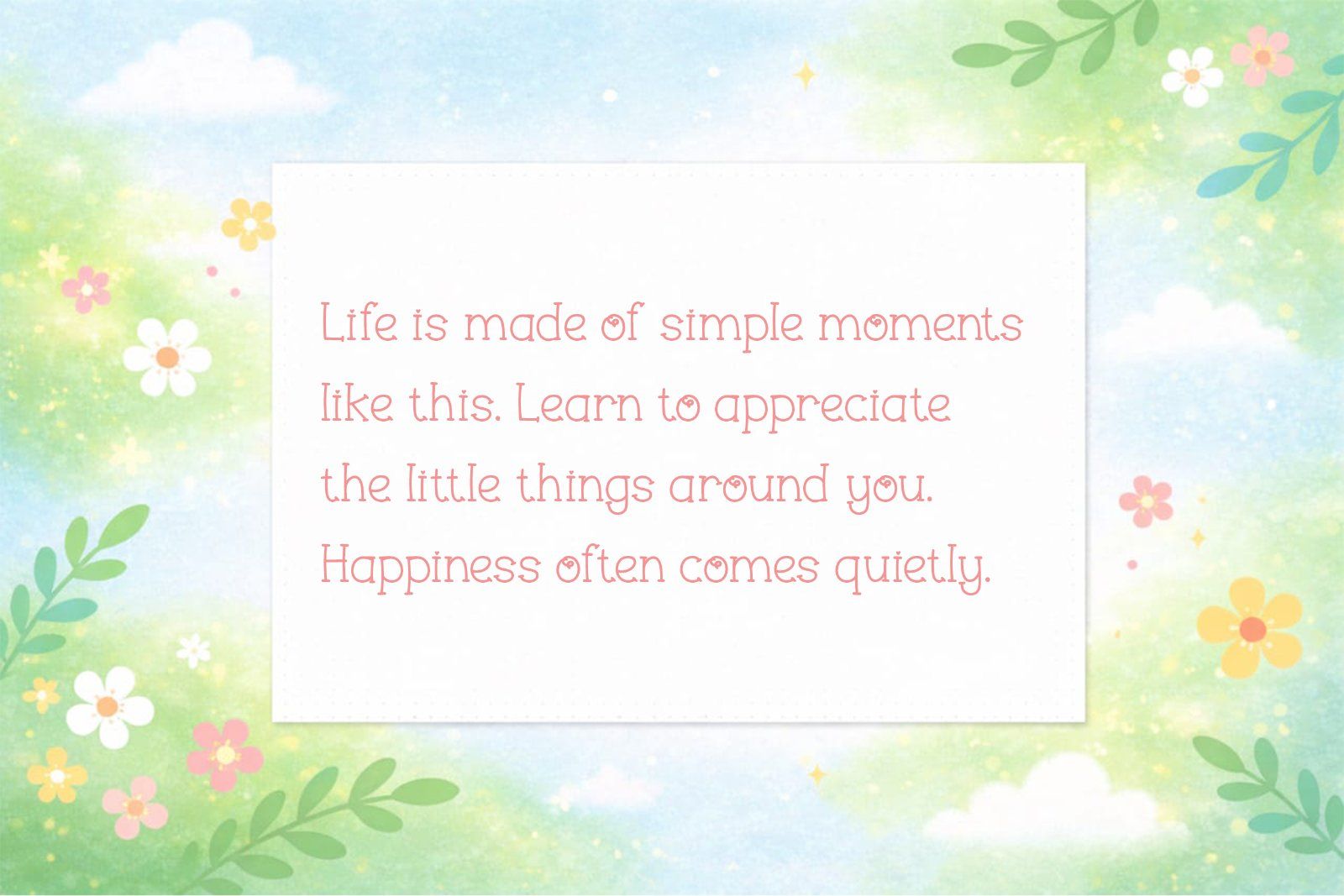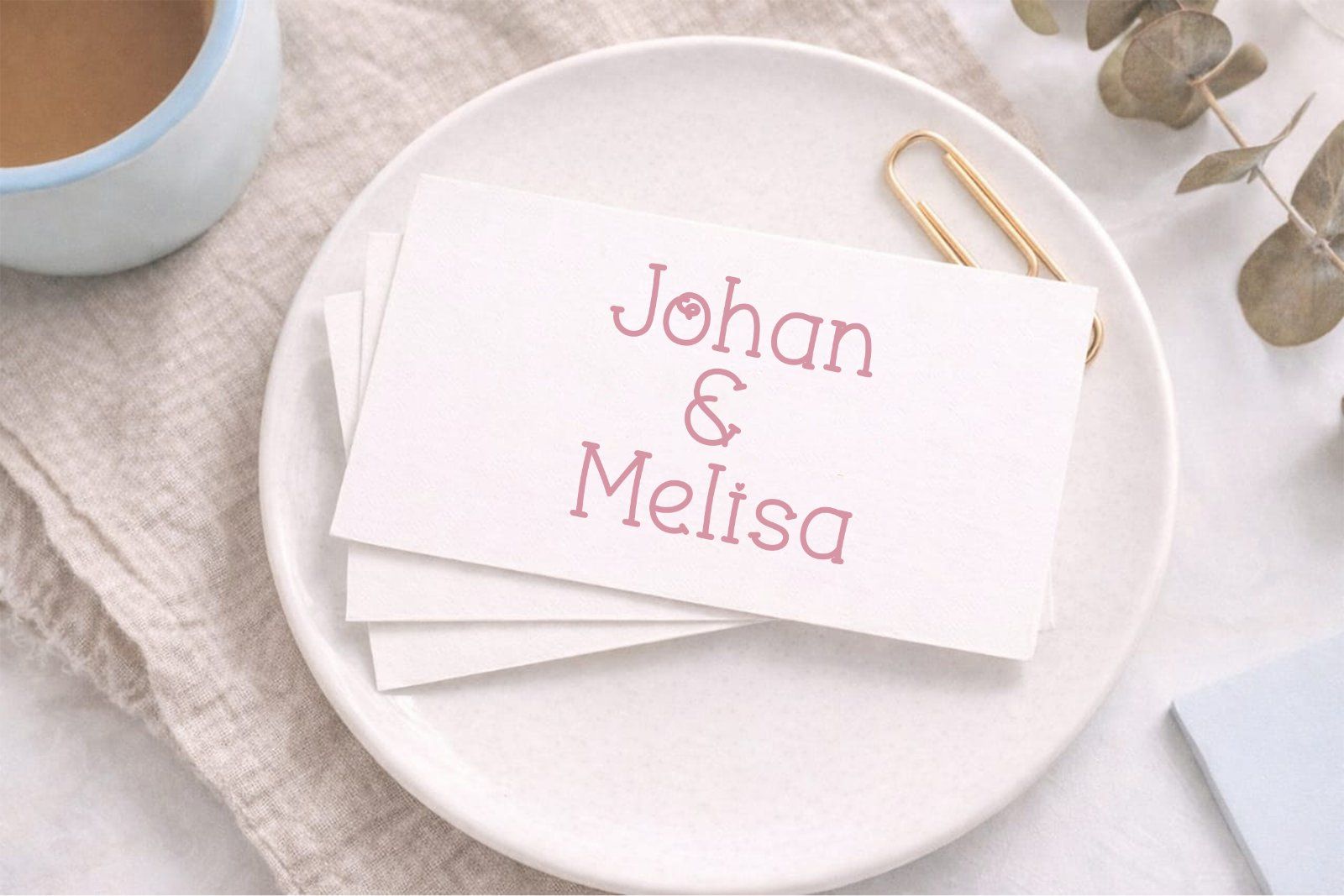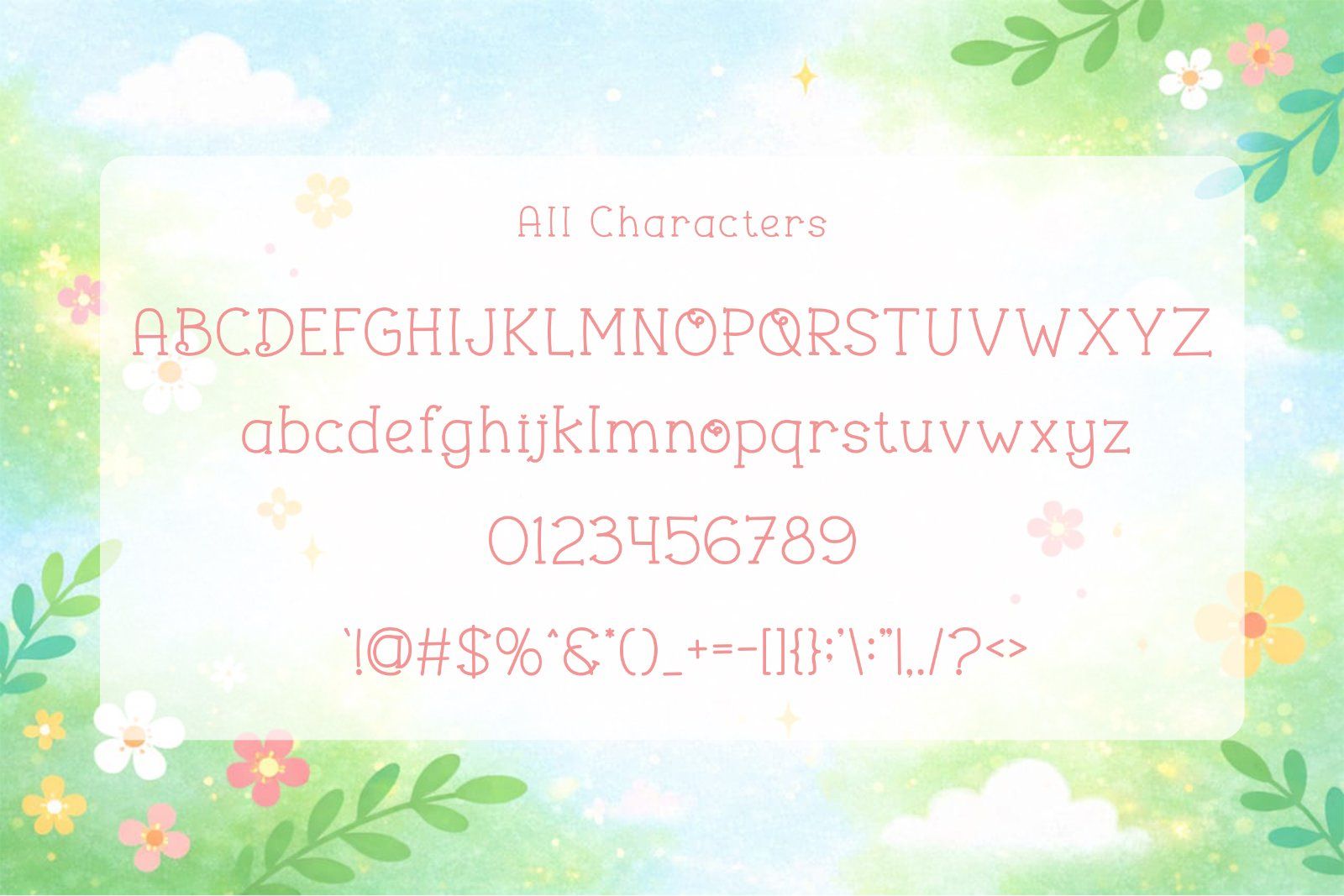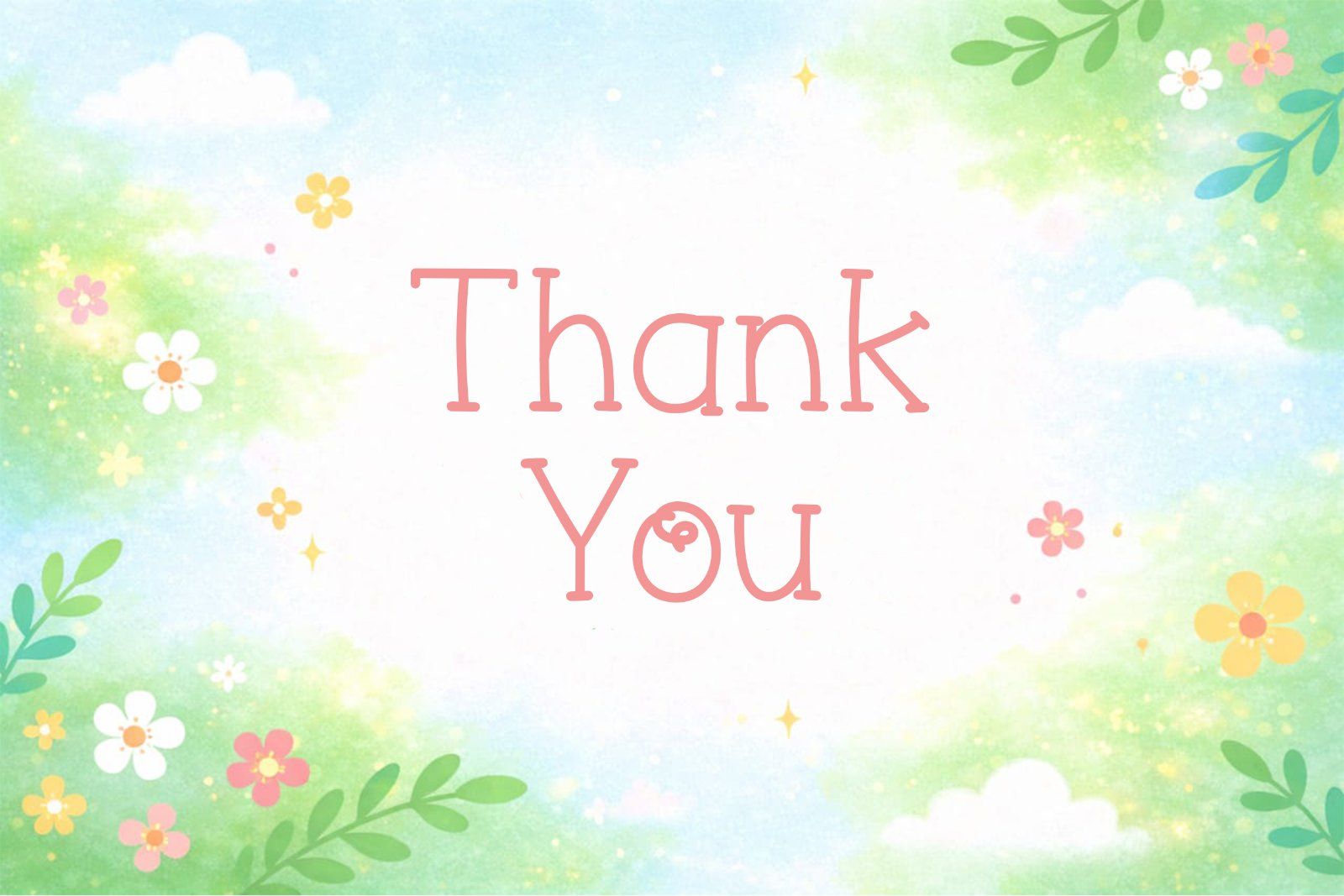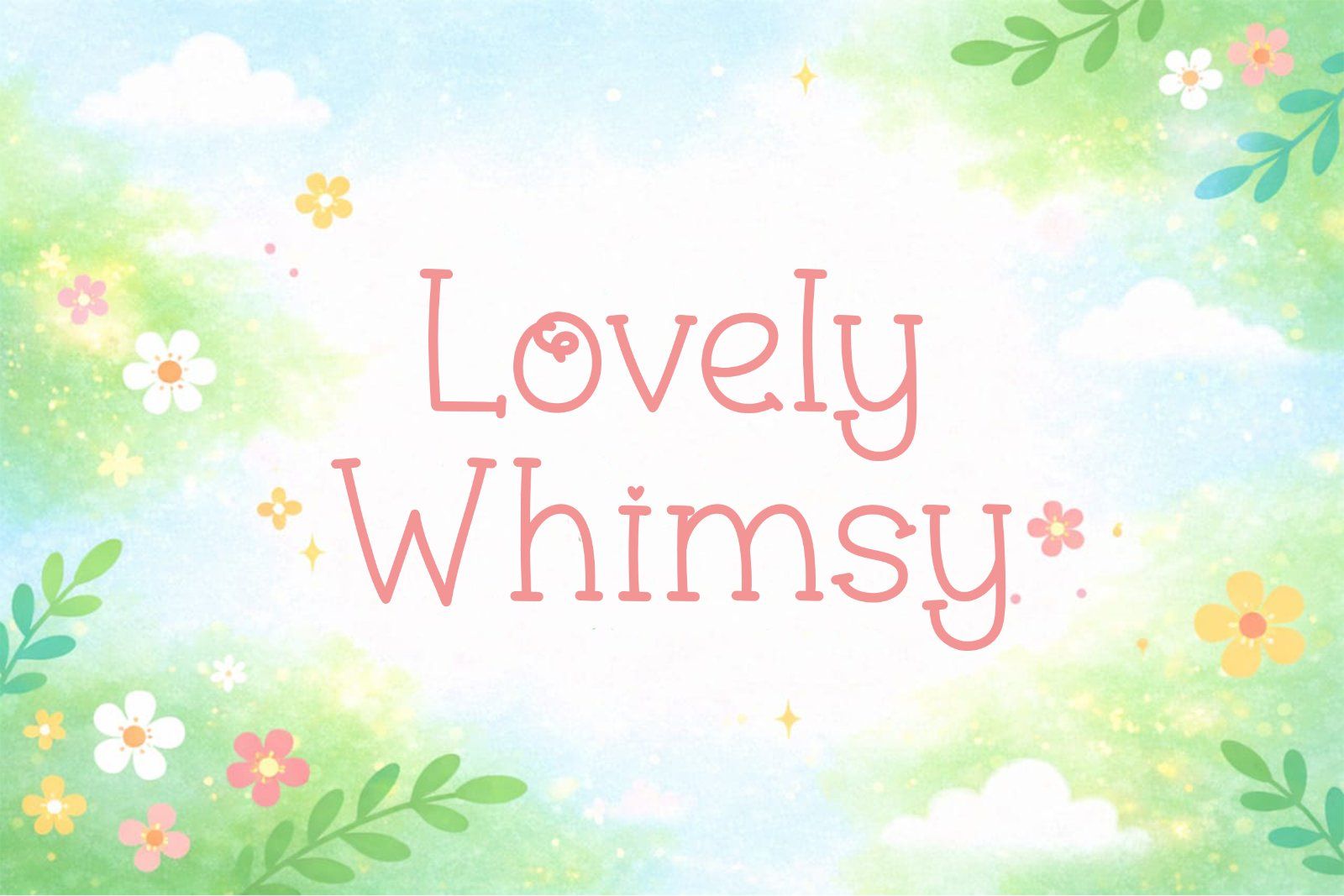
Dainty Hearts is a cute handwritten font designed to bring a soft, lovely, and whimsical feel to your designs. With its playful curves and delicate heart details, this typeface is perfect for creating charming visuals that feel warm and personal.
Ideal for branding, wedding invitations, greeting cards, quotes, social media content, and anything that needs a touch of sweetness and joy.
Let your designs feel more lovely, light, and full of heart.